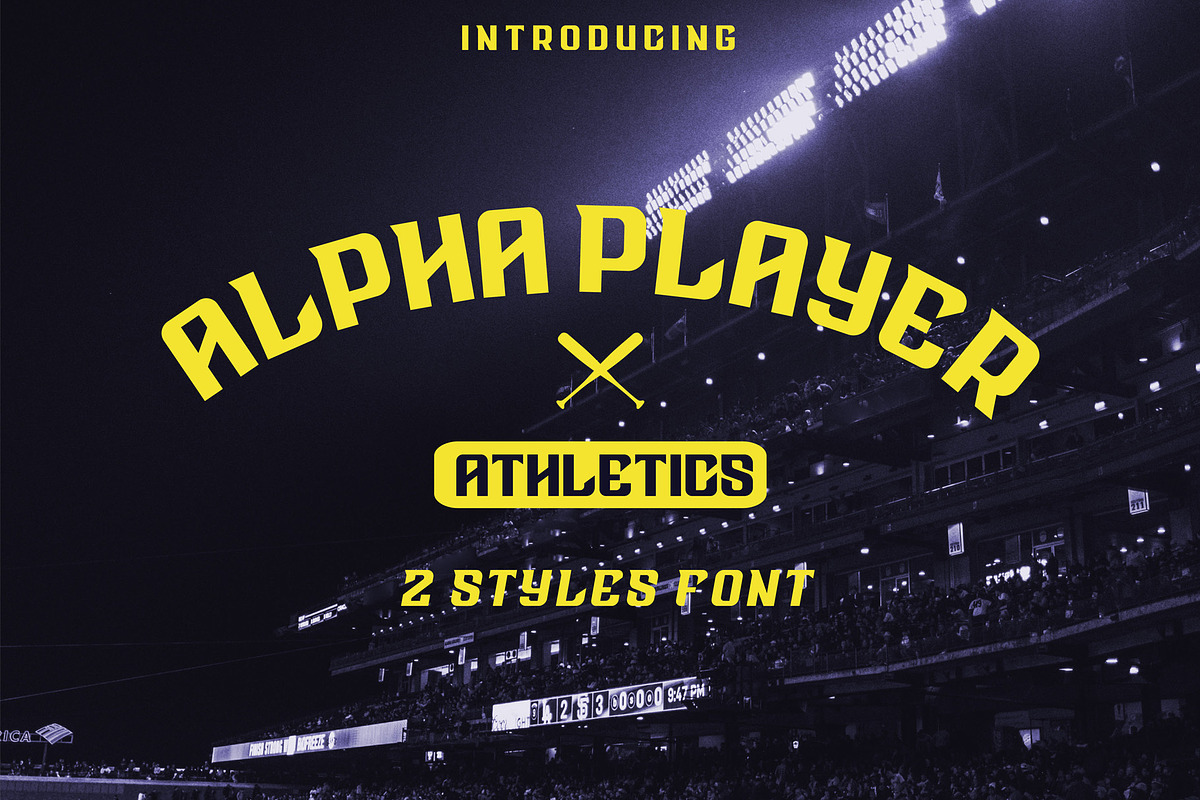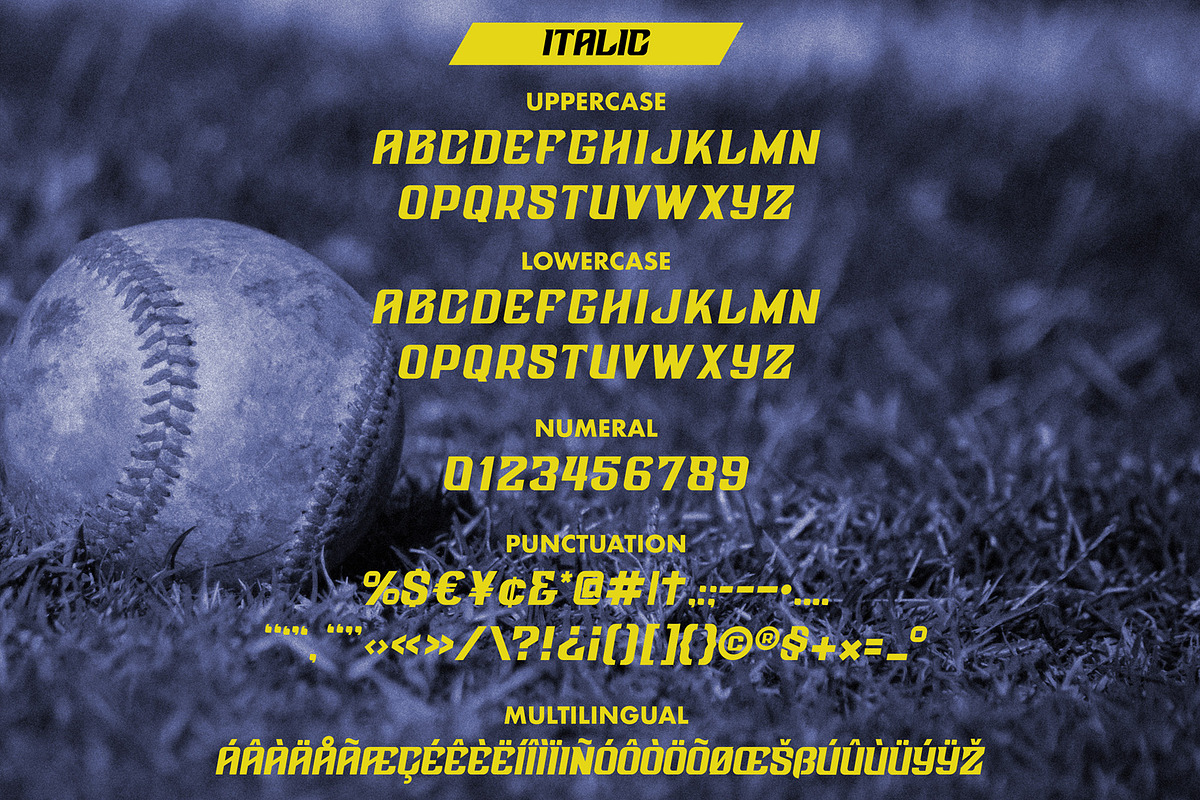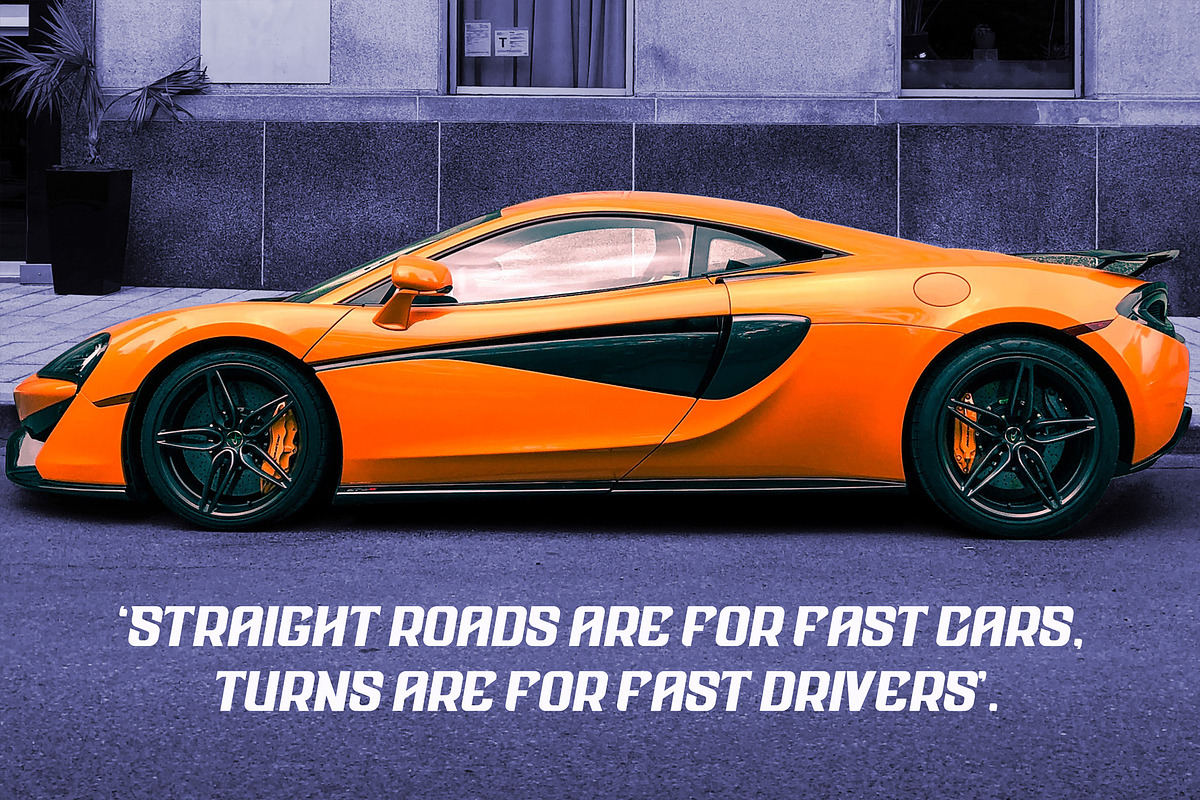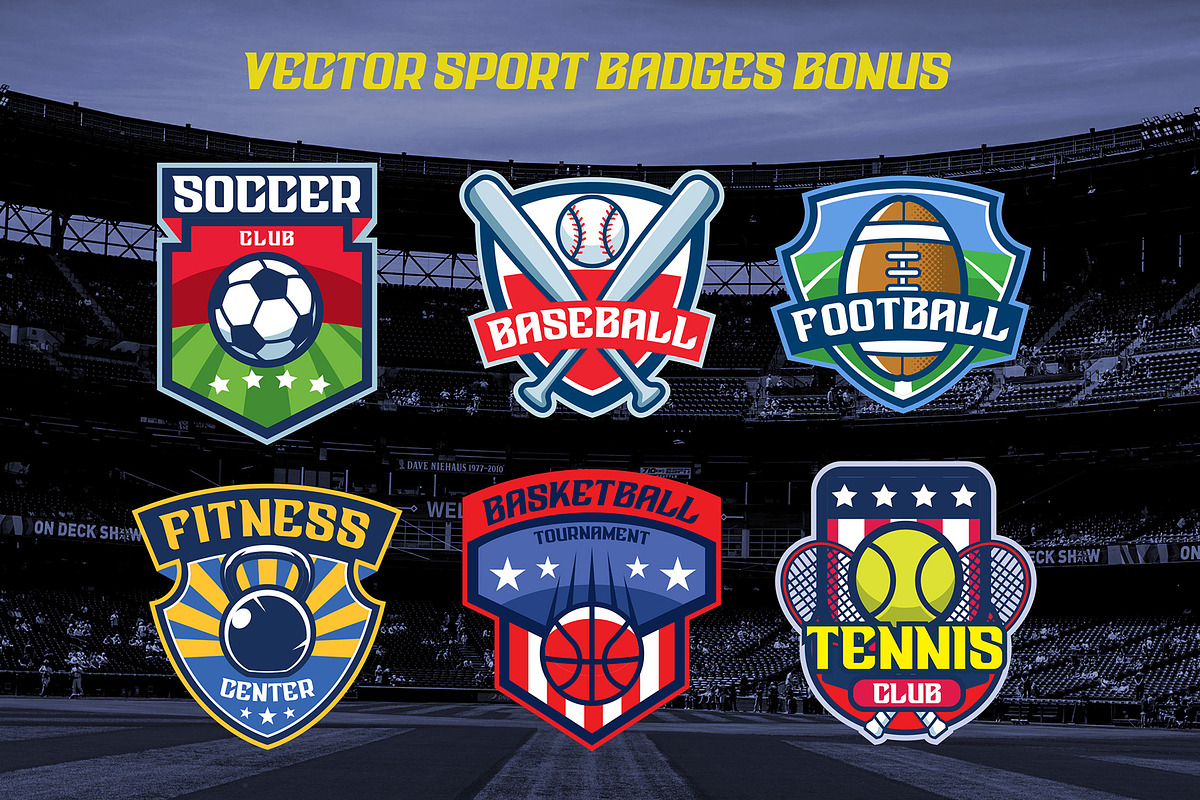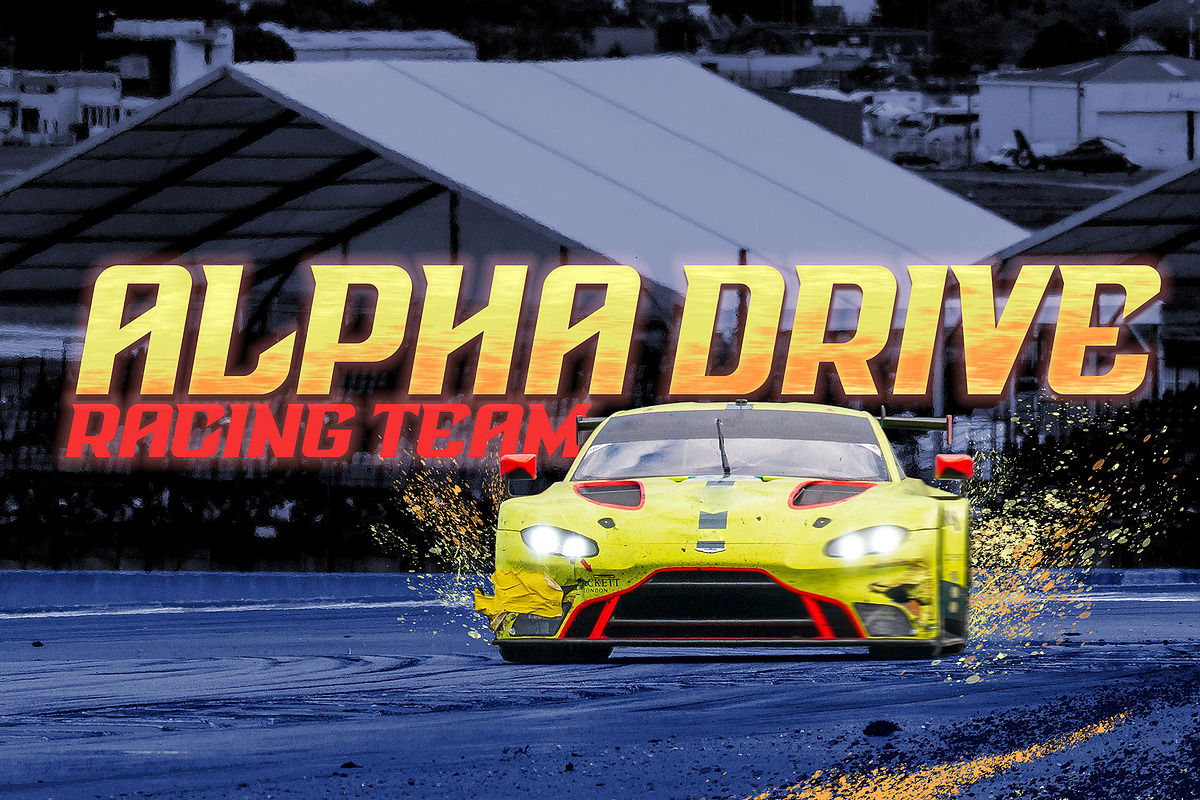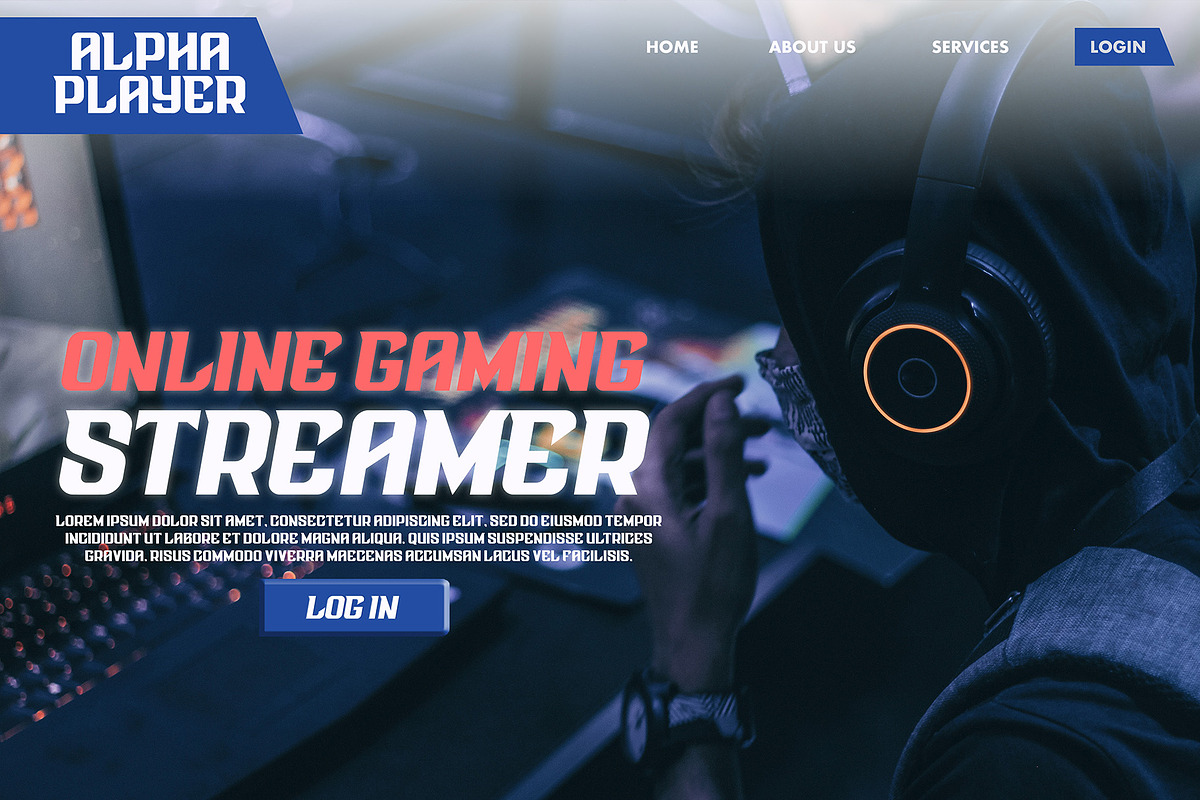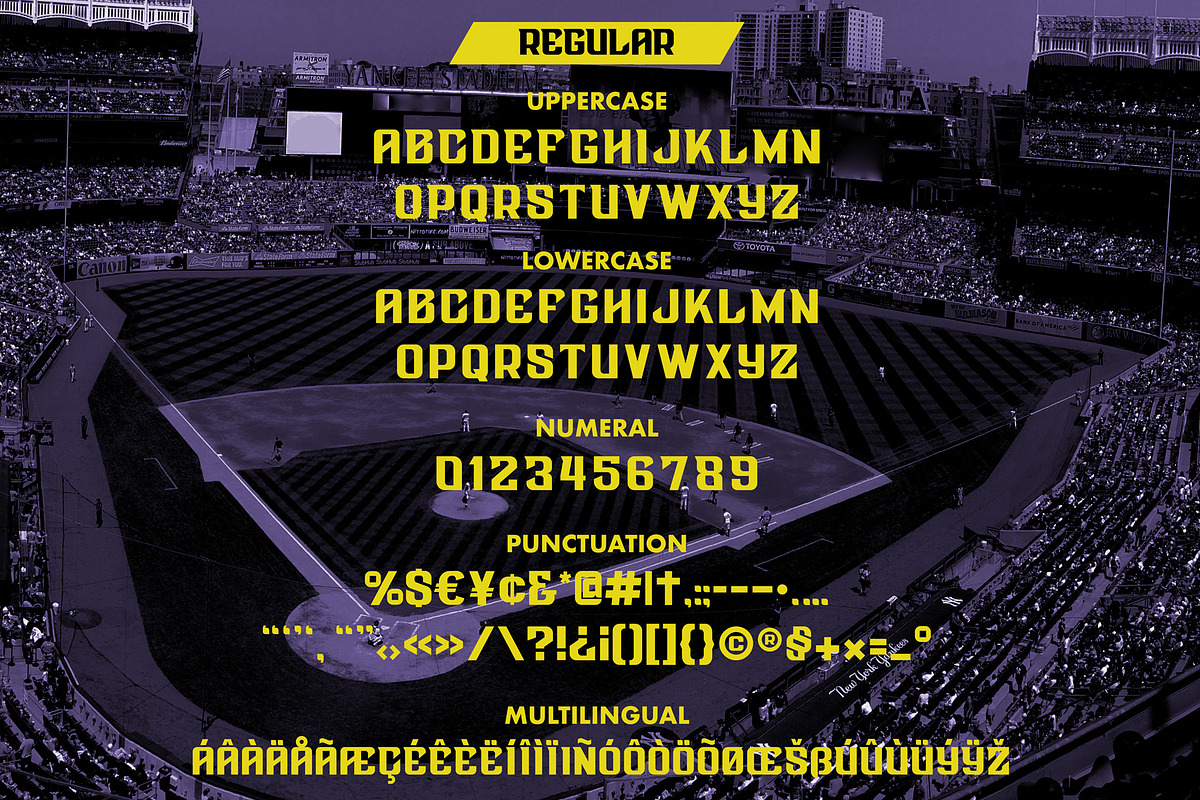
ALPHA PLAYER 2 styles font
ALPHA PLAYER font is a sporty, masculine, athletic, bold, furious and fast that inspired from the sport scene industry. Fits on major concept of sports as well as the fast growing e-sports scene, this font is quite versatile and also suitable for badges design to, in this package containing 6 free vector badges with unconverted text so make sure you have install the ALPHA PLAYER font before opening the badges file.
- Fits on major concept of sports as well as the fast growing e-sports scene, this font is quite versatile and also suitable for badges design
- Alpha Player Regular
- Alpha Player Italic